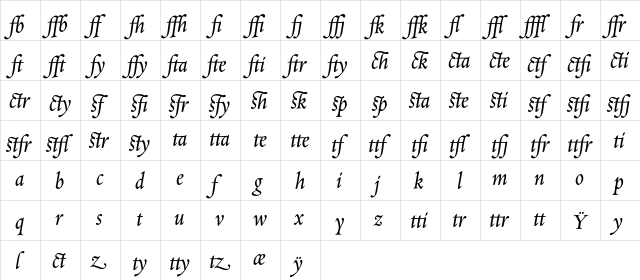
Requiem Text-HTF-ItalicLigs
Design Context for Requiem Typeface
Requiem offers clean, dependable letterforms without strong stylistic allegiance, making it a practical choice for designers who need flexibility. Its italic angle brings a sense of urgency and motion to the letterforms.
Pro Tip: Try Requiem for annotation and caption copy alongside an upright companion — the contrast in angle creates a dynamic but ordered typographic system.